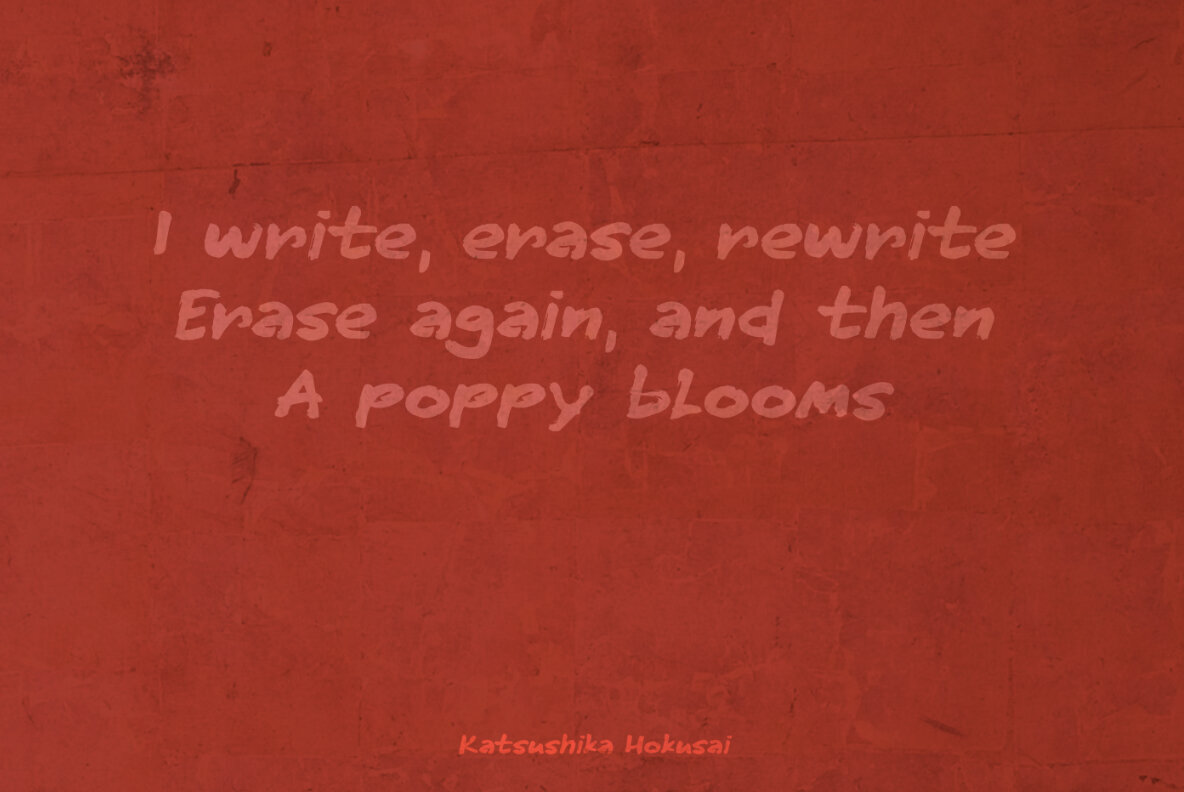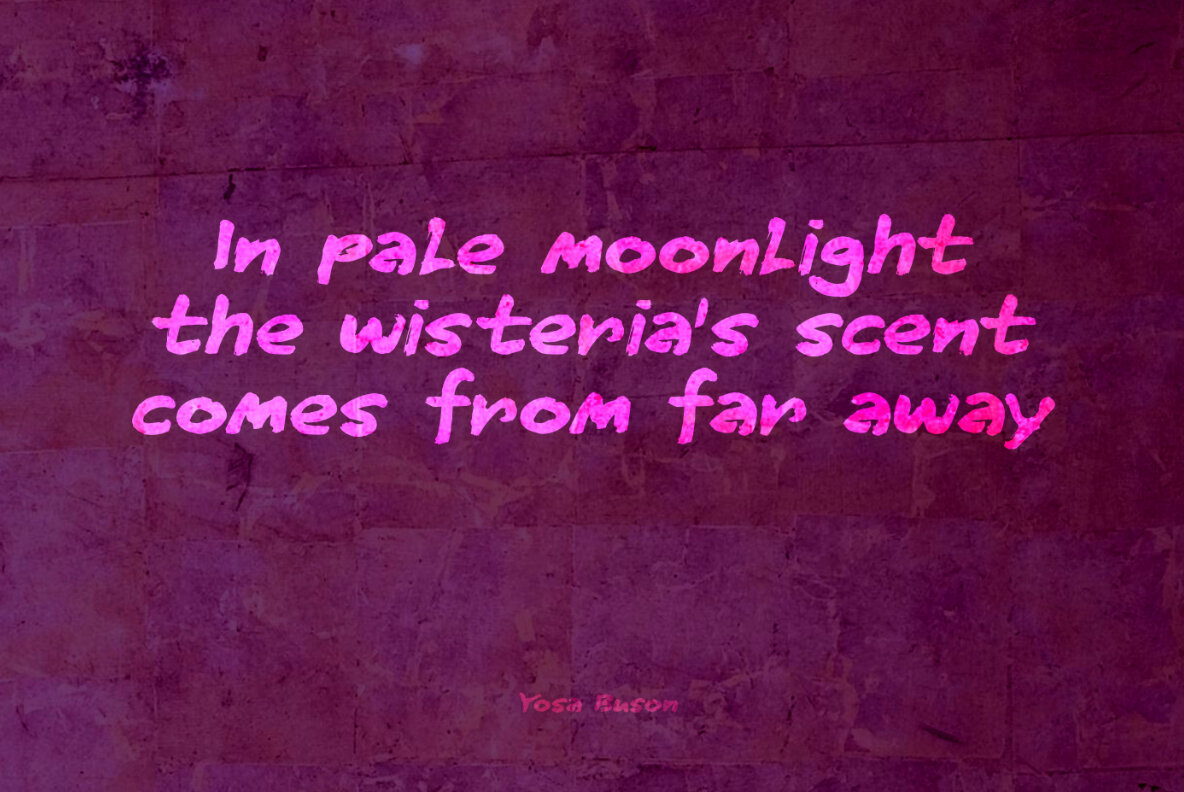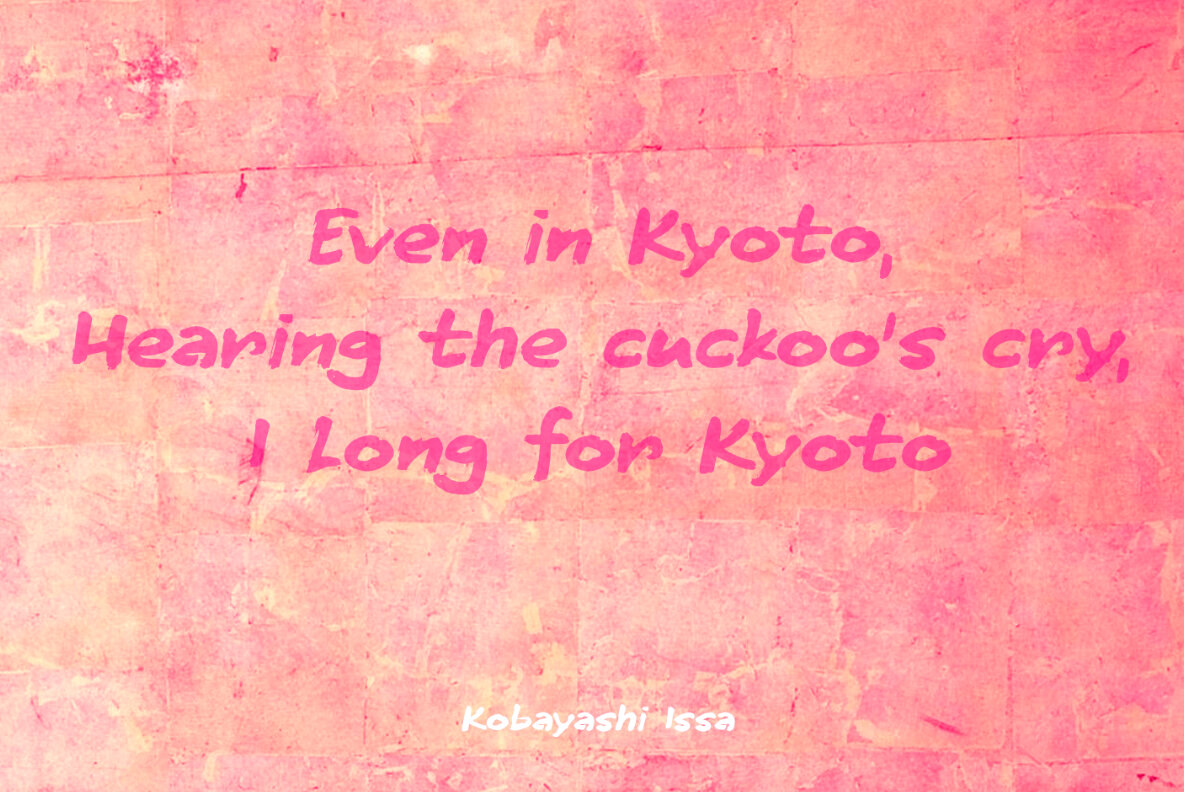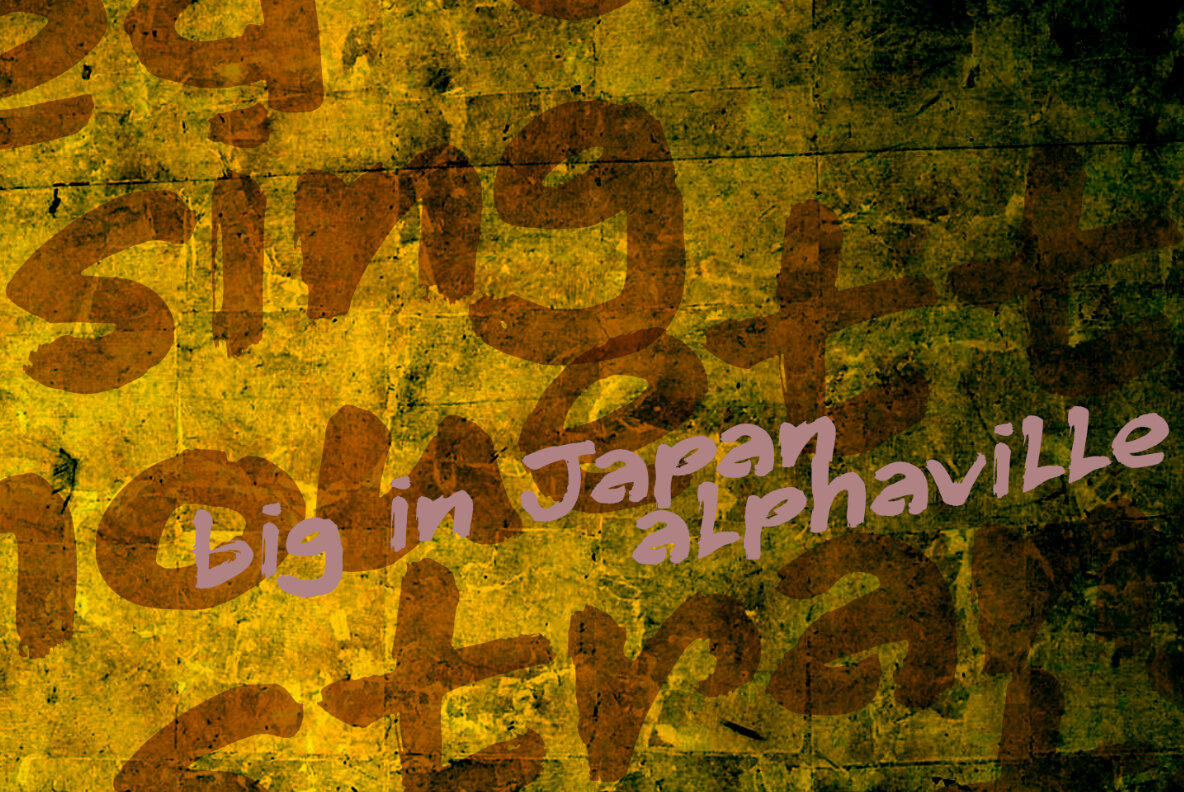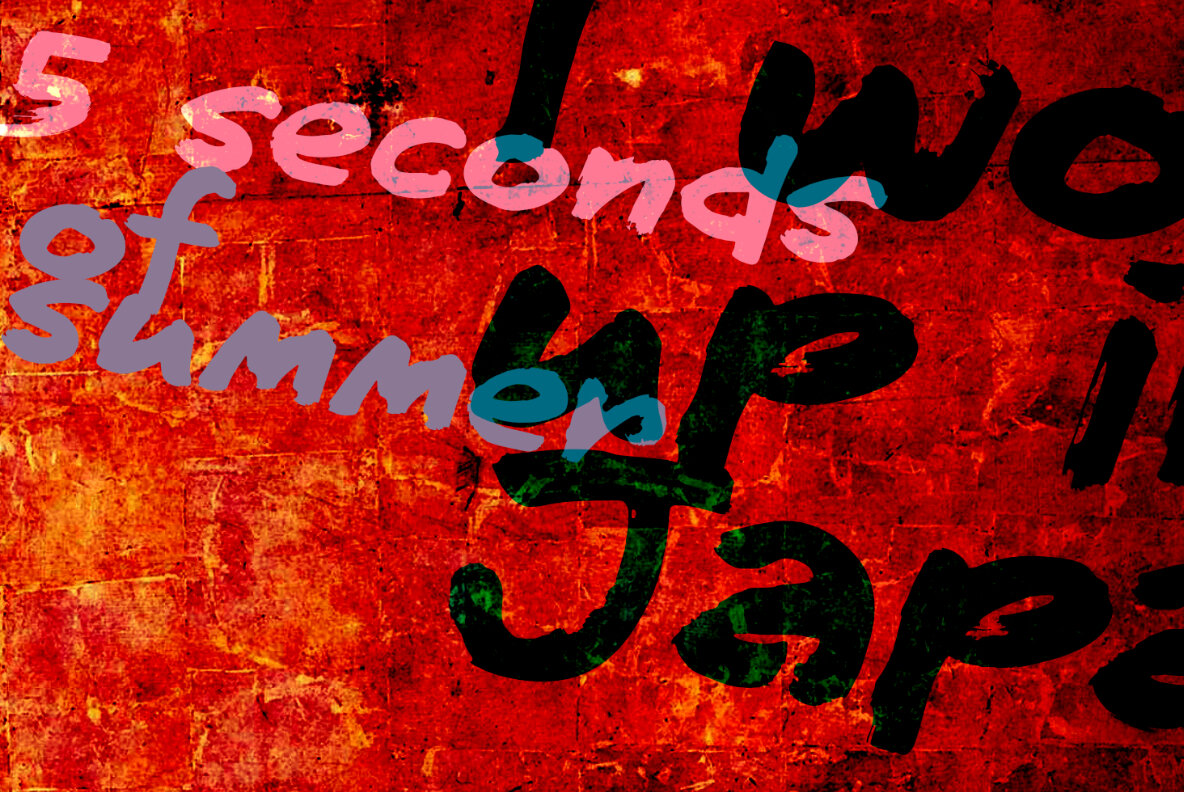
Tokyo Geisha Font
My wife was watching ‘Memoirs Of A Geisha’ the other day, and I am going to take my son Sam to see Japan in May this year, so when I started drawing out the glyphs for this font, the name was already chosen!
Tokyo Geisha is a handmade brush font. I made it with Chinese ink and one of the Chinese brushes my late father in law gave me.
Tokyo Geisha is a font with speed and a certain flamboyance. It comes with extensive language support and a cool .notdef glyph. I am sure you will put it to good use!